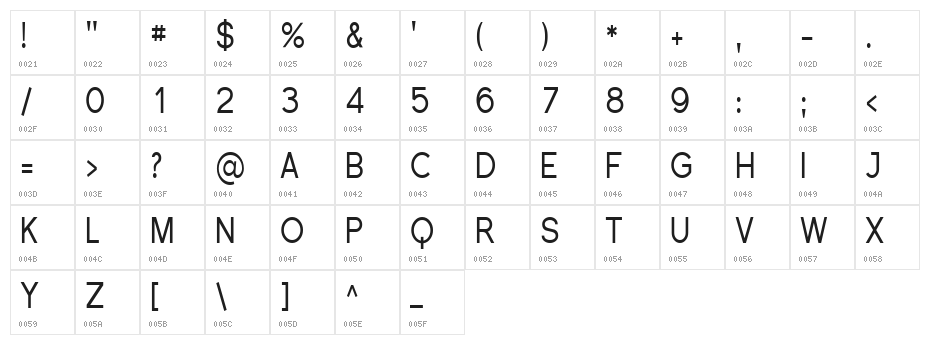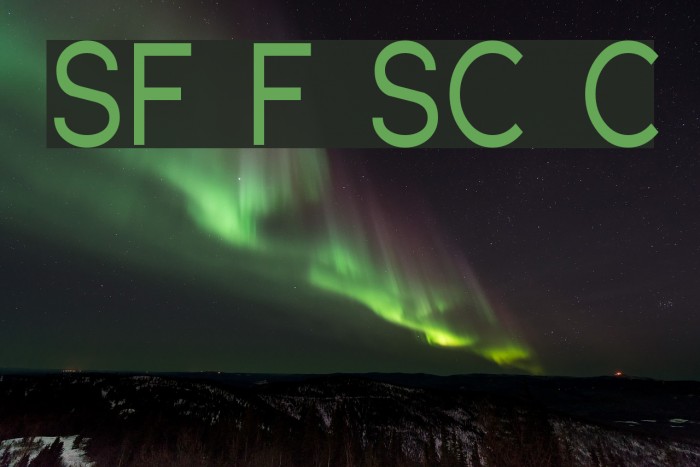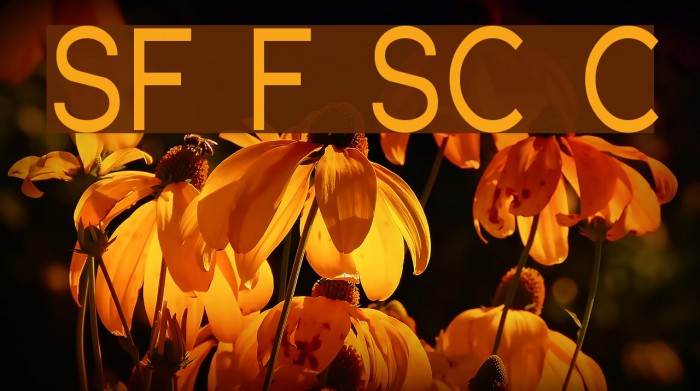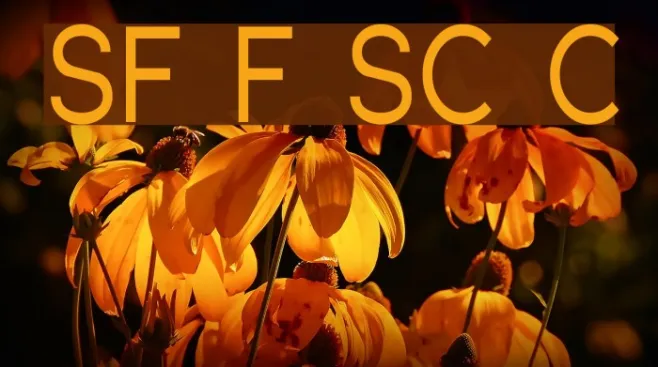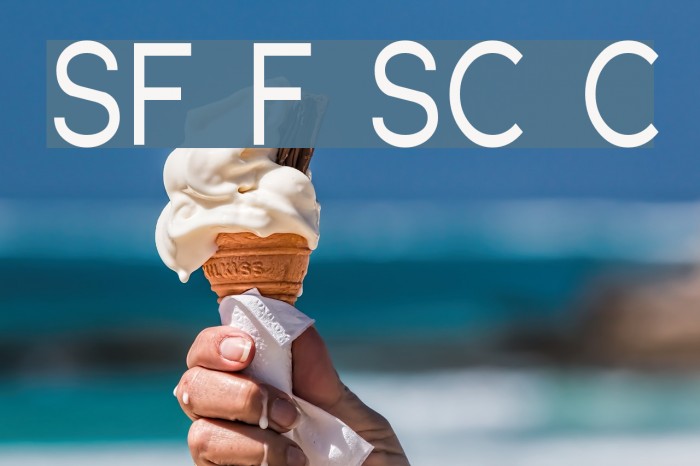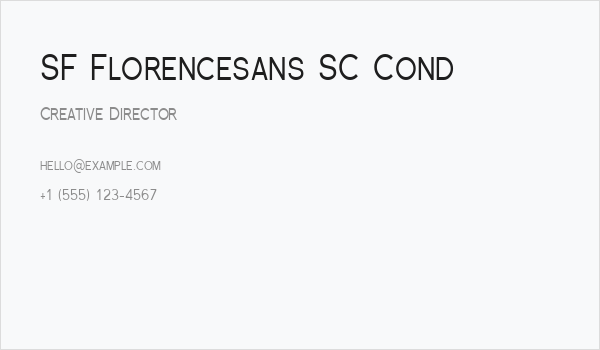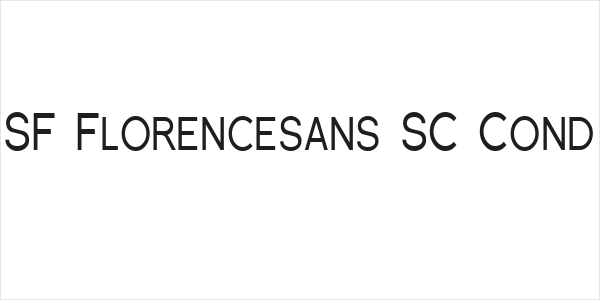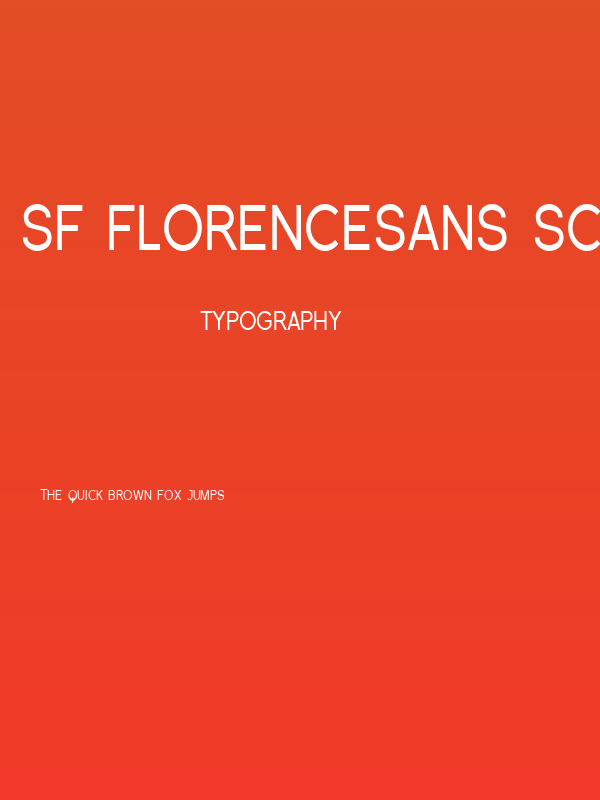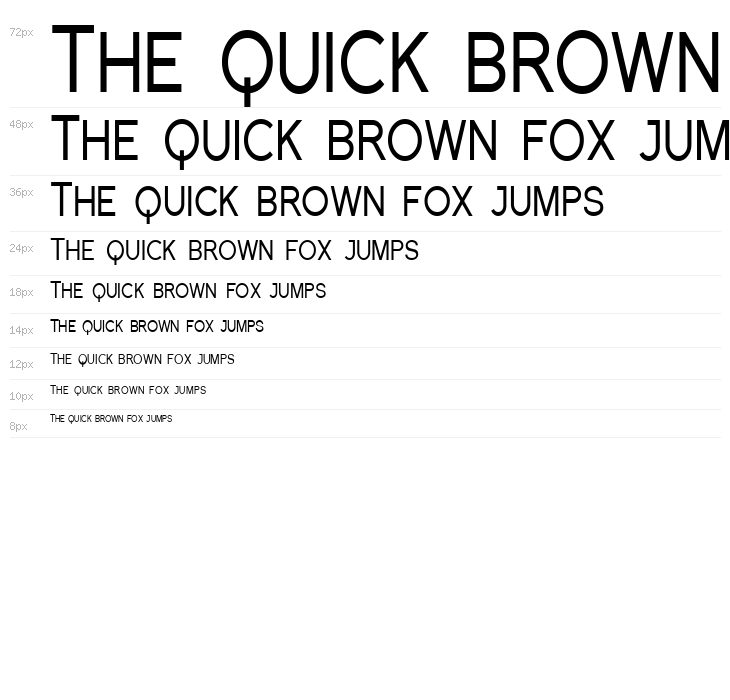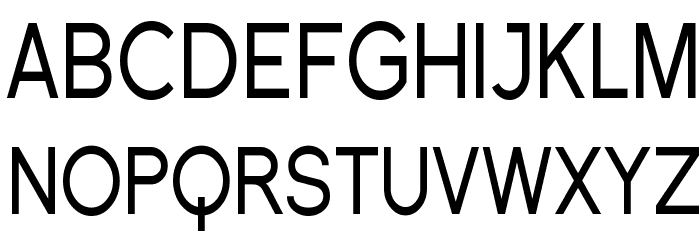
SF Florencesans SC Cond Font
SF Florencesans SC Cond Description
This font exhibits a clean and modern sans-serif style with a geometric structure. The characters are evenly spaced, providing a balanced and harmonious appearance. The uppercase letters are bold and prominent, while the lowercase letters maintain a consistent weight, ensuring readability across different sizes. The numerals are clear and distinct, making them suitable for both display and text purposes. Special characters are well-defined, adding versatility to the font's use. The overall design is sleek and contemporary, making it ideal for a wide range of applications.
| Use Case | Headlines, Logos, Web design |
| Proposed Projects | Ideal for branding, advertising, web design, and editorial layouts. |